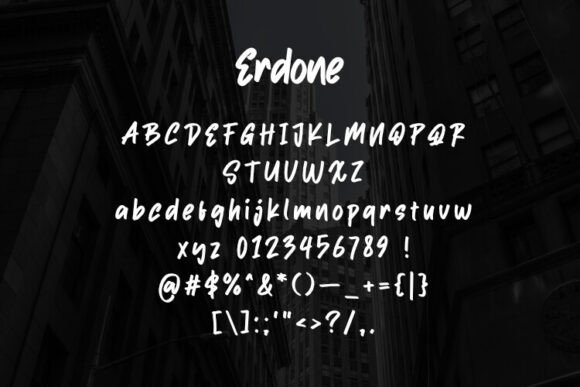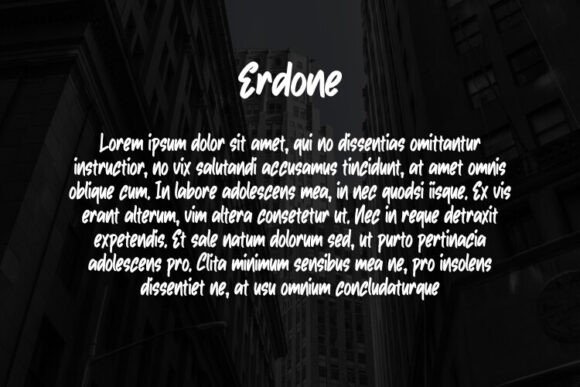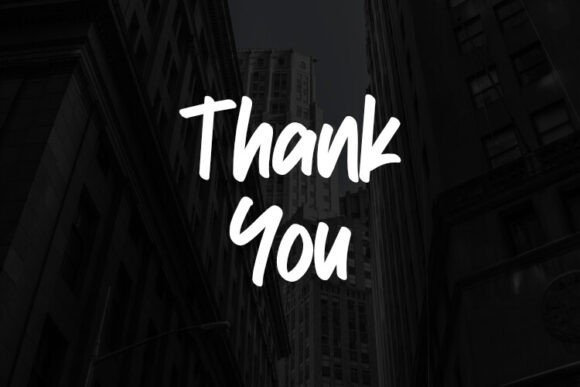
Unleashing the Power of Erdone Font
Have you ever stared at a blank canvas, waiting for inspiration to strike? The blank page stares back, and your creative mind is a jumble of ideas. This is where the magic of design happens, and Erdone Font is here to ignite that spark. With its sleek lines and elegant curves, Erdone Font is the perfect companion for any design project, from clothing and product designs to creative ventures that require a touch of sophistication.
Key Features of Erdone Font
- Unique, modern script font with a transparent background, allowing for seamless integration with various designs.
- Perfect for adding a touch of elegance and sophistication to various design elements, from logos to typography-based art.
Honest Review: Erdone Font
I recently had the chance to work with the Erdone Font, and I must say, it’s been a game-changer for my design projects. This font is a fantastic addition to any design resource collection.
- What works well: ✨ The Erdone Font has a beautiful, elegant design that’s perfect for creative projects requiring a high-quality, modern look. I love how the font can be used for both body text and headlines.
- What works well: ✨ The transparent background option is a huge plus, allowing me to easily combine the font with any design element.
However, I do have to mention a few limitations:
- ⚠️ The font doesn’t come in as many weights as I’d like, which can limit its versatility in certain design situations.
Overall, I’m really impressed with the Erdone Font. It’s a great choice for designers looking for a high-quality, stylish font to add some depth to their creative projects. The free download option is a nice touch, but be aware of the limitations. With a little more weight and flexibility options, this font would be almost perfect.
The Erdone Font is a high-quality design resource that offers a unique and creative solution for your projects. This font is perfect for designers and artists looking for a versatile and modern font to enhance their work.
Using Erdone Font in Creative Projects
The Erdone Font can be used in various creative projects, including logos, posters, and digital graphics. It is also suitable for use in presentations, such as PowerPoint and Word, and can be used in graphic design software like Adobe Photoshop and Illustrator.
Tips for Getting the Most Out of Erdone Font
To get the most out of the Erdone Font, use it in conjunction with a transparent background to create a clean and modern design. Experiment with different font sizes and styles to find the perfect combination for your project.
The Erdone Font is commonly used in branding, marketing materials, and digital graphics. It is also suitable for use in educational and informational materials, such as presentations and posters.